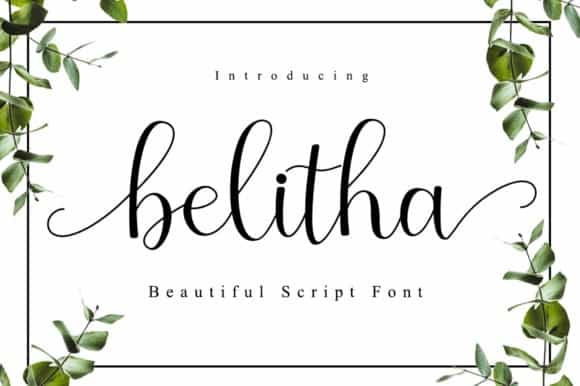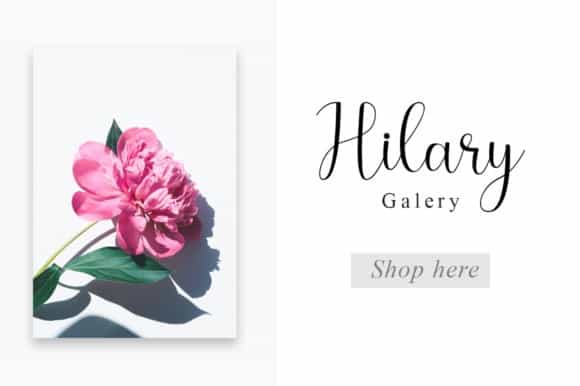
Introducing the new contemporary calligraphy font duo that have handwritten and organic look – Belitha Font. This classy font is for those who are in need of elegance and style for their designs, especially well-suited for wedding invitations, cards and feminine branding.